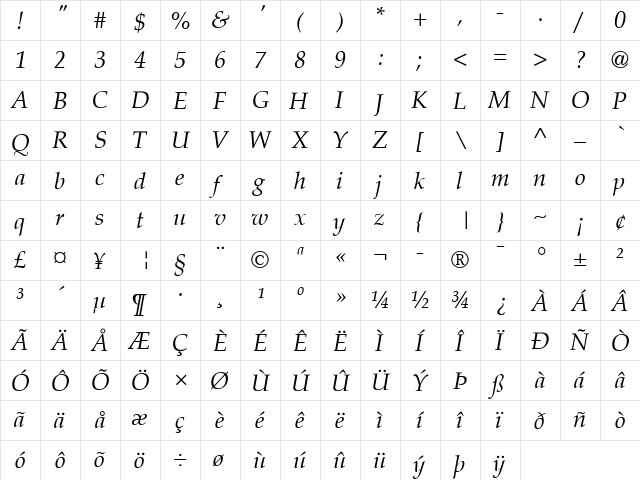
URW Palladio L Regular
| Foundry | by URW |
Design Context for URW Palladio L Typeface
URW Palladio L takes a measured approach to typography — its balanced proportions and neutral character make it a reliable workhorse for both digital and print work.